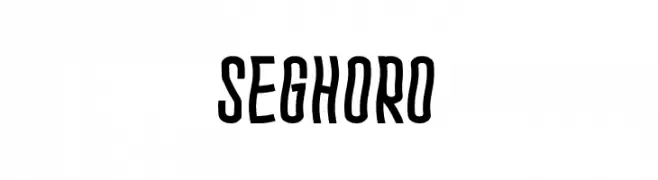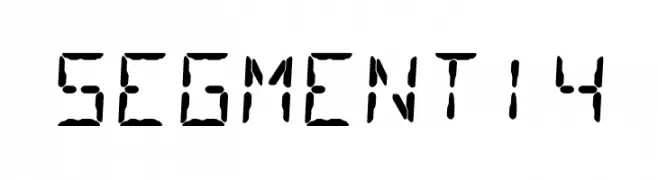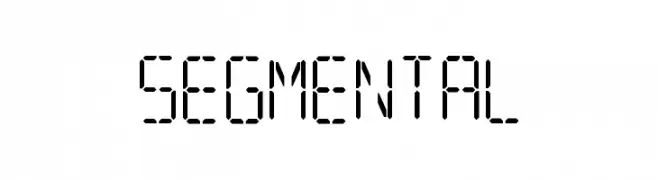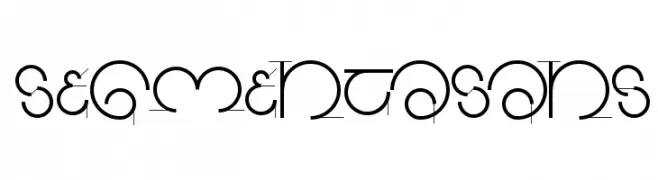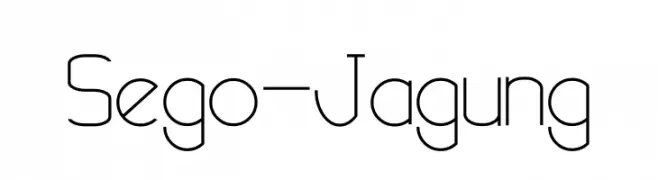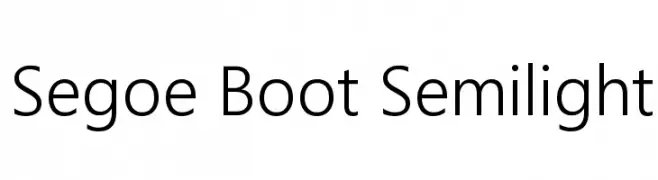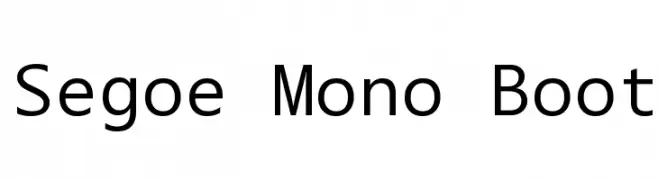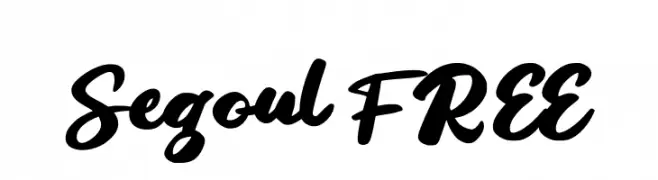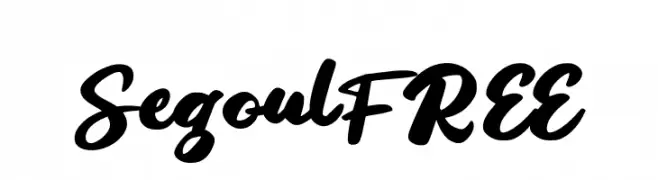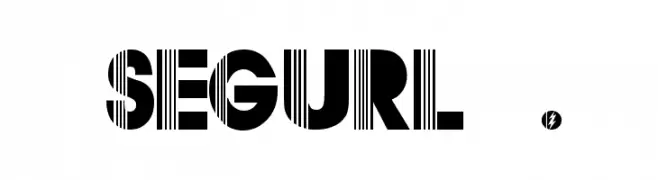
A bold, dynamic font with elongated, curved strokes and a modern, condensed appearance.
A digital-inspired font resembling seven-segment displays with a geometric, technical style.
A modern, geometric font with sharp angles and circular elements.
A modern, geometric font with clean lines and a minimalist style.
A bold, cursive font with interconnected, flowing letters and a modern style.
A bold, cursive script font with a playful and energetic style.
A bold, angular font with a playful and dynamic style.
A bold, striped font with geometric shapes and a dynamic lightning bolt motif.
A flowing, cursive script font with elegant, connected strokes.
A dynamic and expressive handwritten font with fluid cursive strokes.
A bold, modern font with rounded edges and geometric structure.
An elegant, cursive script font with ornate uppercase and fluid lowercase letters.
An elegant, flowing script font with calligraphic influences and ornate details.
A bold and elegant script font with flowing, interconnected characters.
A cursive script font with elegant, flowing lines and a handwritten style.
A bold, playful script font with a handwritten style.
A bold, stencil-style font with thick strokes and rounded edges.
A bold, modern stencil-like font with a futuristic and industrial feel.
A rugged, textured font with jagged edges, ideal for bold and adventurous designs.
A bold, fragmented font with sharp, angular cuts for a dynamic and edgy look.
A bold, decorative font with intricate floral patterns within each character.
A dynamic and fluid script font with elegant, flowing letterforms.
A cursive, handwritten-style font with elegant, flowing strokes.
A bold, playful, hand-drawn font with rounded characters.
A bold, playful, hand-drawn font with a friendly and whimsical style.